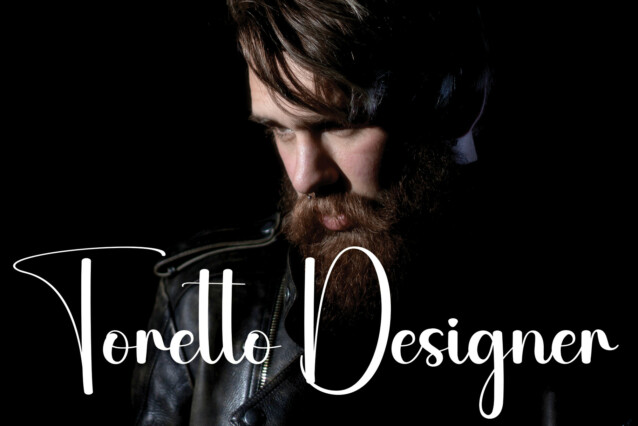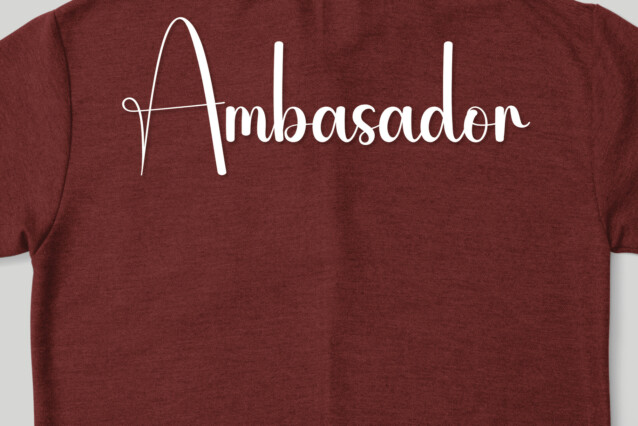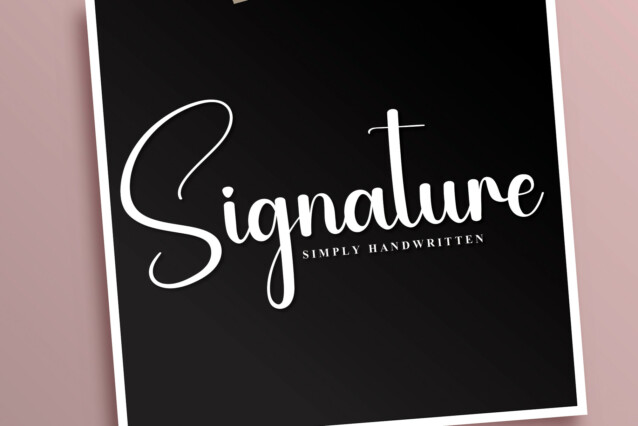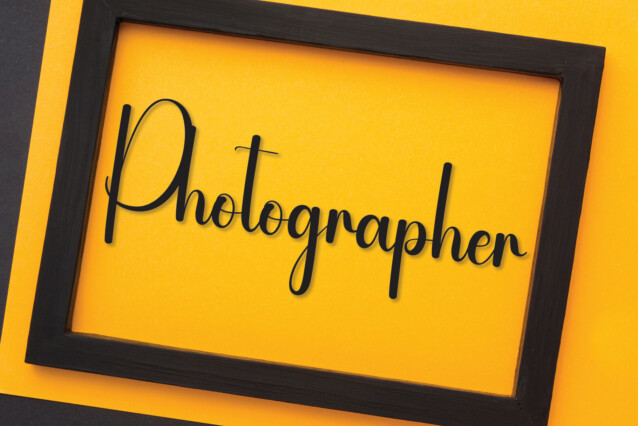
Simple Food Script Font
Simple Food Script Font is a delicate and modern handwritten font. You can use it for wall displays, wedding invitations, social media post logos, advertisements, product packaging, product designs, labels, photography, watermarks, invitations, stationery, and any project that requires taste handwriting.